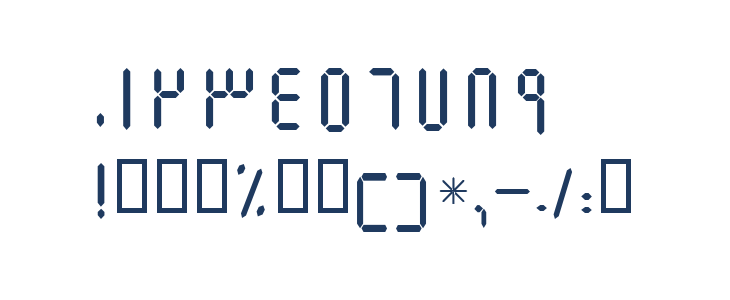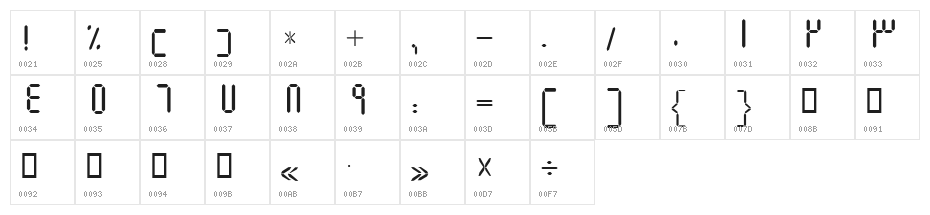
Elm Font
Elm Description
This font features a futuristic and digital-inspired design, characterized by its geometric and angular letterforms. The characters are constructed with a series of straight lines and sharp angles, giving it a mechanical and technical appearance. The font maintains a consistent stroke width throughout, contributing to its modern and clean aesthetic. The uppercase and lowercase letters share a similar structure, enhancing the uniformity of the typeface. The numerals and special characters are designed to match the overall style, ensuring a cohesive look across all elements. This font is ideal for projects that require a contemporary and tech-savvy feel.
| Use Case | Logos, Headlines, Digital interfaces |
| Proposed Projects | Ideal for technology branding, digital interfaces, video game design, and sci-fi themed projects. |